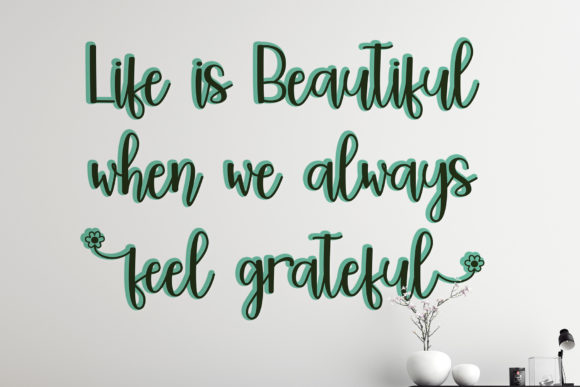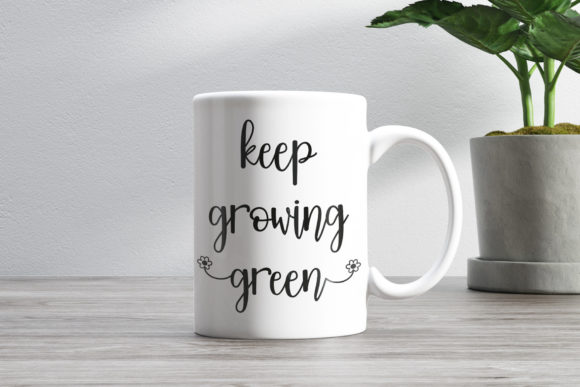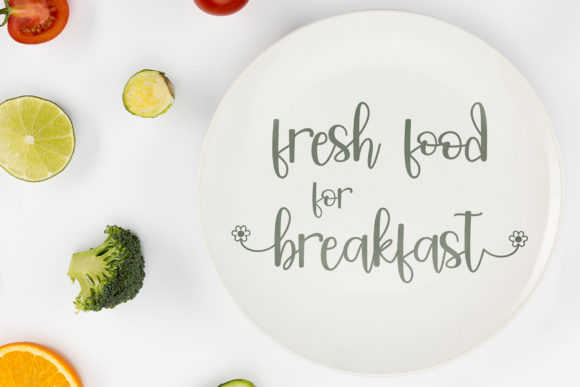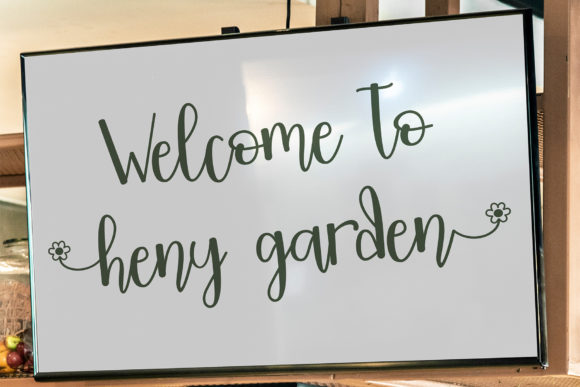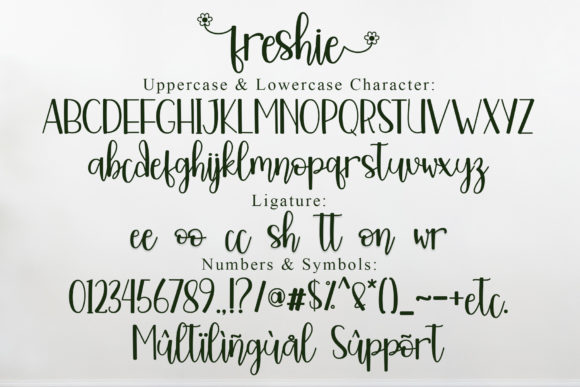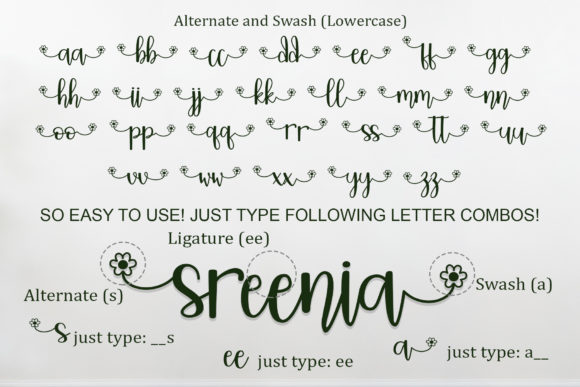
Introduction to Freshie Font
Freshie is a flowery, light and friendly handwritten font.
It is PUA encoded which means you can access all of the glyphs and swashes with ease Fall for its ravishing style and use it to create gorgeous designs.
Key Features of Freshie Font